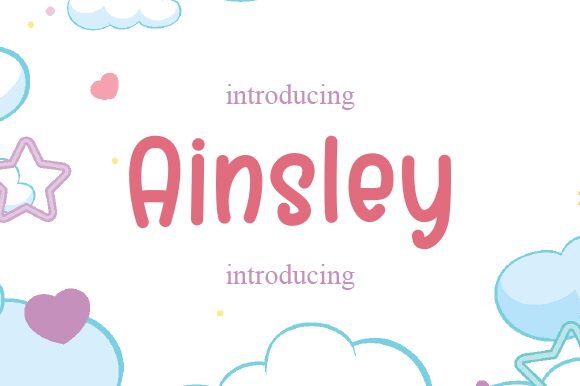
Ainsley
Ainsley, a light handwritten font designed by Aldi Raya Pradipta, adds a personal touch to any project. Perfect for creating eye-catching logos and invitations, Ainsley adds a unique flair to posters, greeting cards, and web designs.